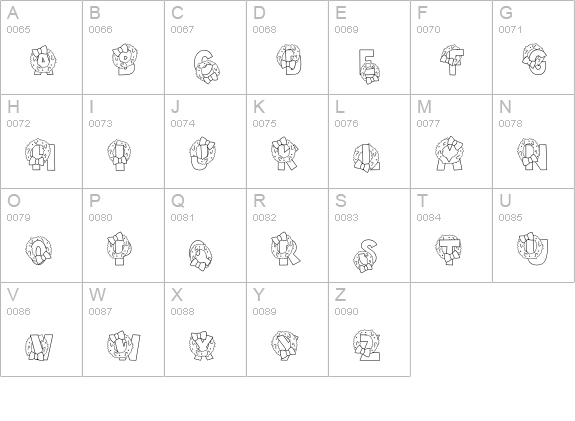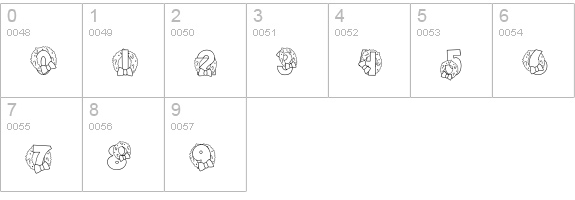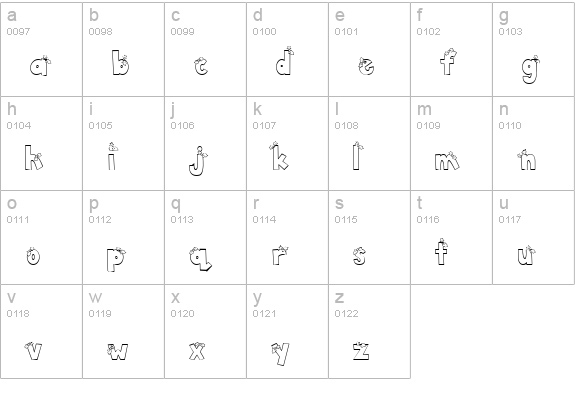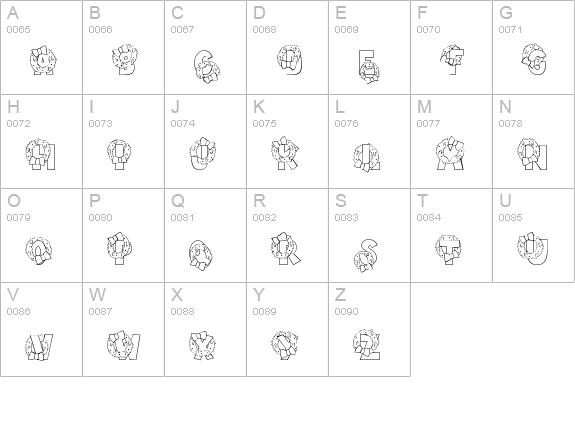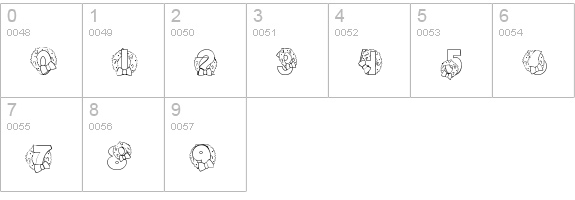
CK Wreaths Font Details
Introducing CK Wreaths font, a whimsical and charming typeface that is perfect for adding a touch of elegance to your design projects. This delightful font features intricate wreath motifs intertwined with graceful letterforms, creating a unique and eye-catching look. Whether you're working on invitations, greeting cards, or branding materials, CK Wreaths font will surely make your designs stand out. The best part about CK Wreaths font is that it is completely free to download at FontsMarket.com. This means you can easily access this beautiful font and use it in your personal and commercial projects without any restrictions. With its versatile style and intricate details, CK Wreaths font is sure to become a favorite among designers looking to add a touch of sophistication to their work. Download it today and elevate your designs with this exquisite typeface.